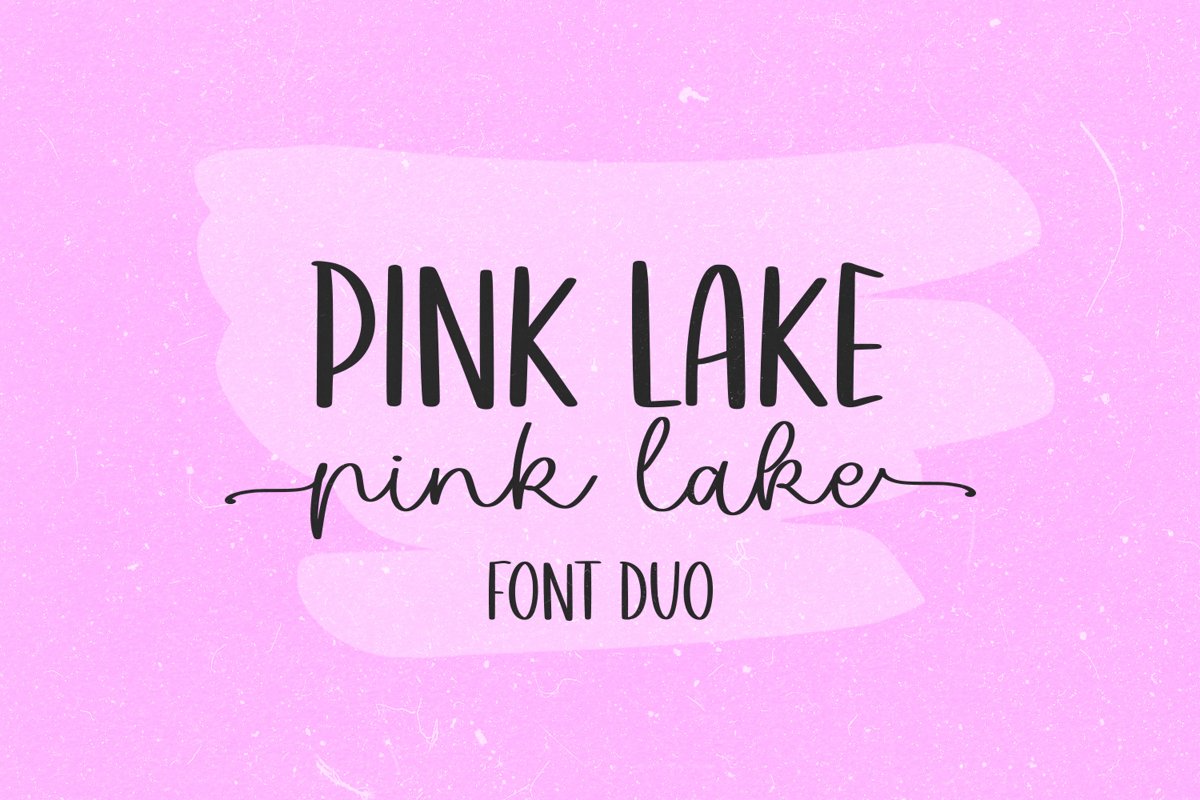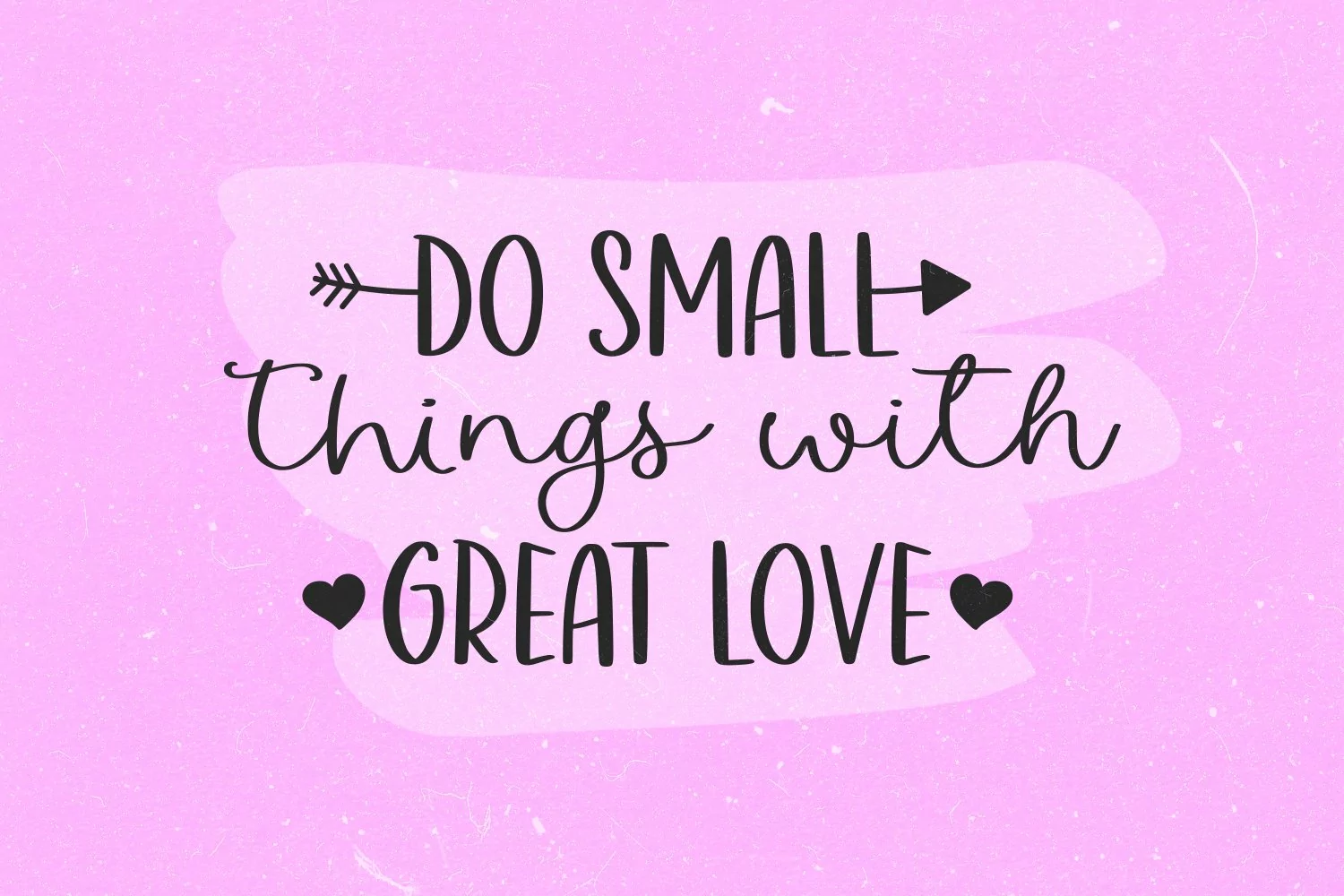
Pink Lake Font Duo - it's a cute font duo
Pink Lake Font Duo .otf - all uppercase sans serif font, numbers, punctuation
Pink Lake Font Duo Script .otf - standart and alternate uppercase, lowercase, numbers, punctuation